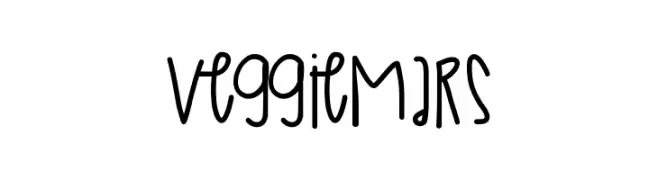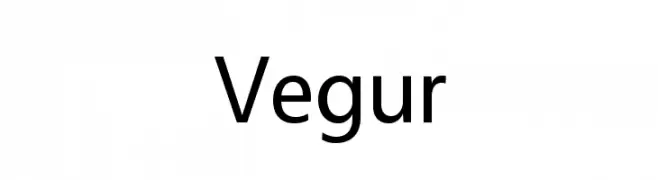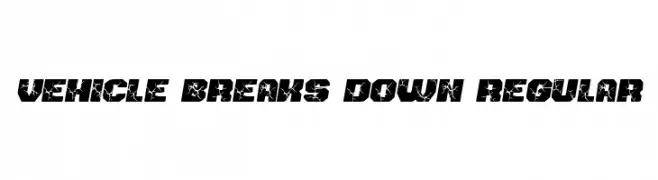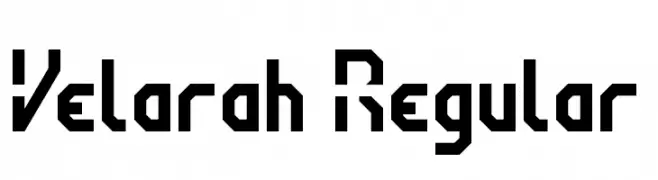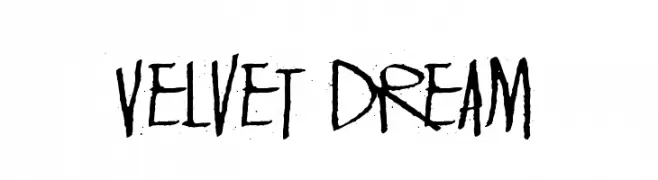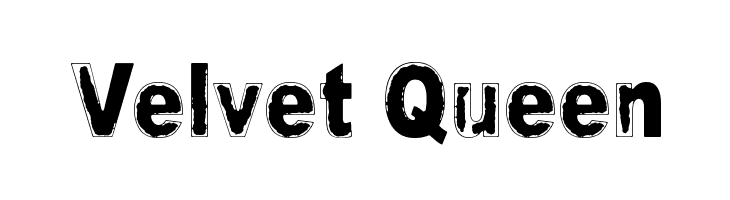
A decorative font with medieval-inspired, angular characters.
A bold, modern sans-serif font with strong geometric influences.
A playful handwritten font with tall, narrow letters and rounded edges.
A clean, modern sans-serif font with uniform stroke width and excellent readability.
A bold, cracked font with a rugged, distressed look.
A bold, geometric font with a futuristic and modern design.
A bold, hand-drawn font with irregular, jagged edges and high contrast.
A bold, distressed font with a vintage, textured appearance.